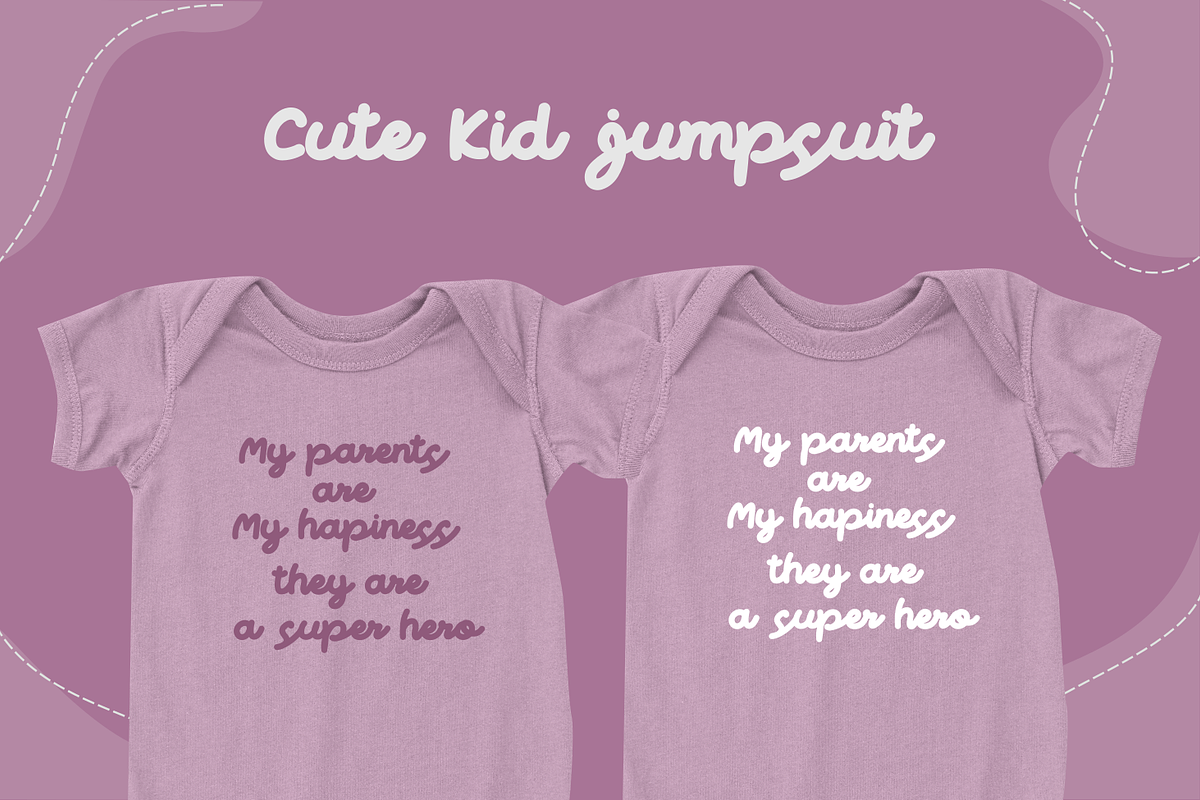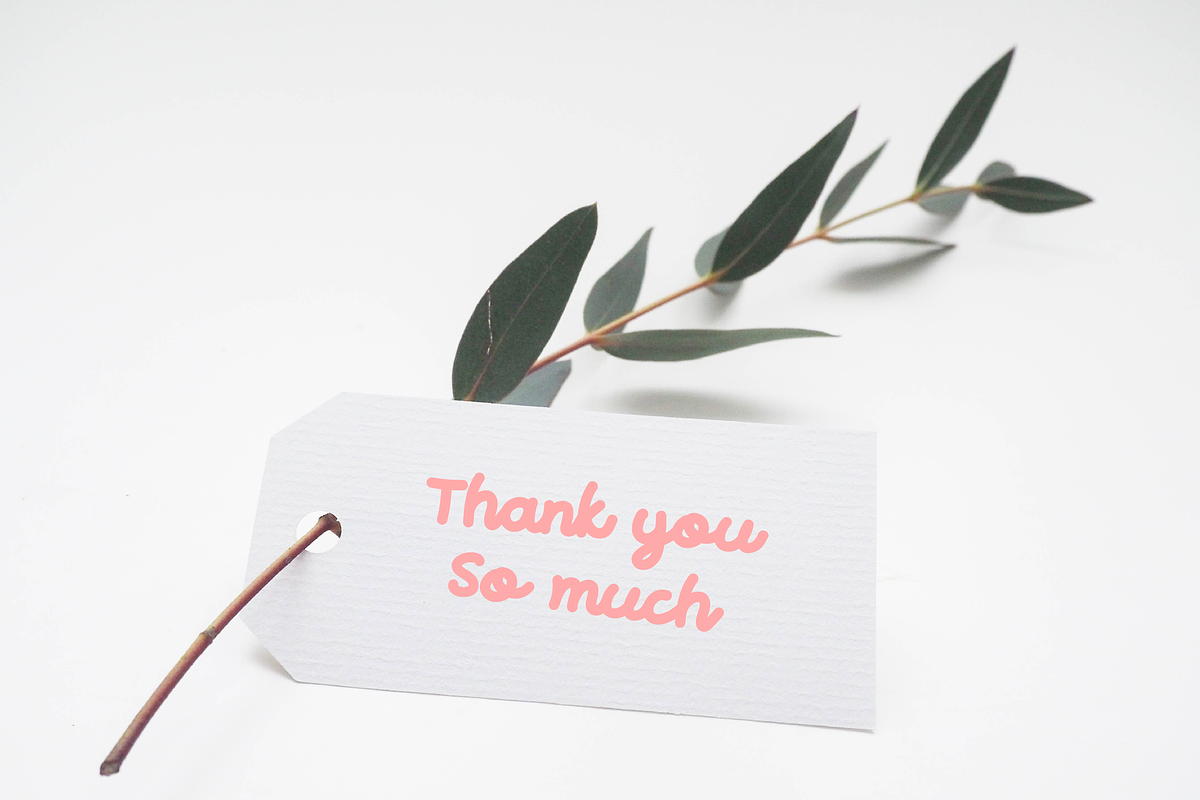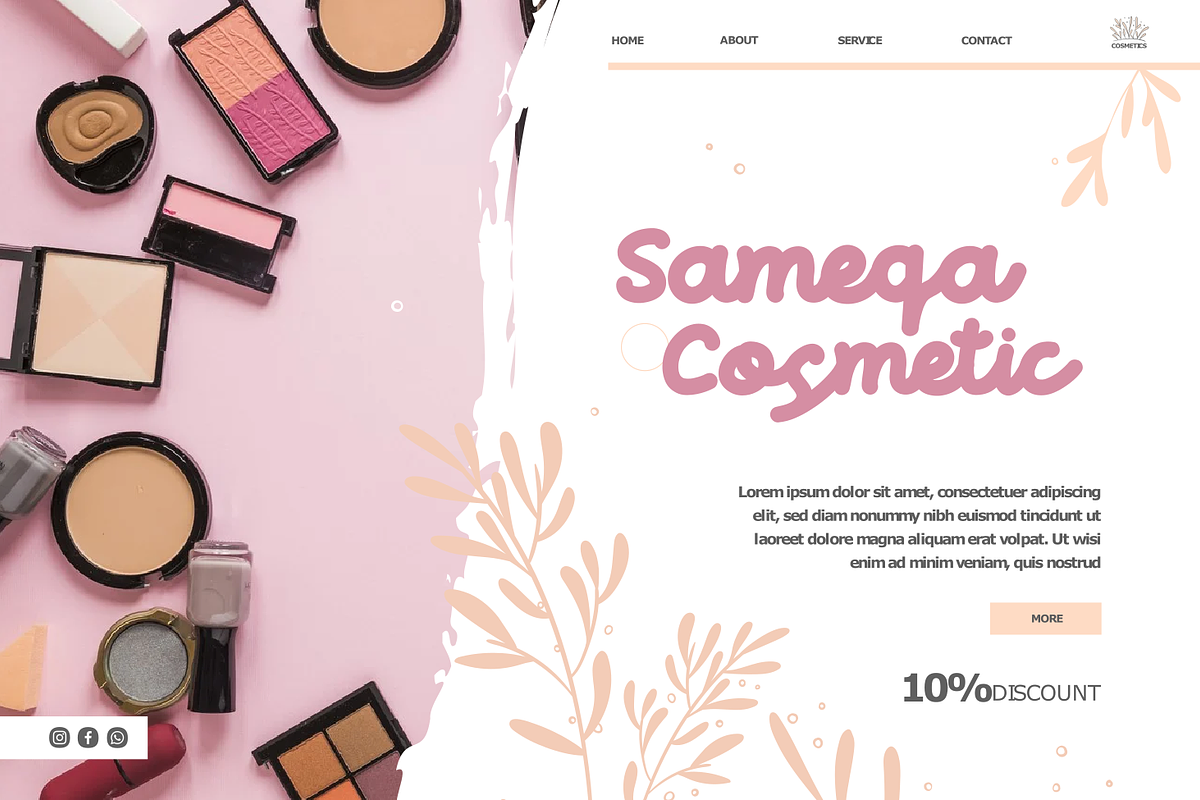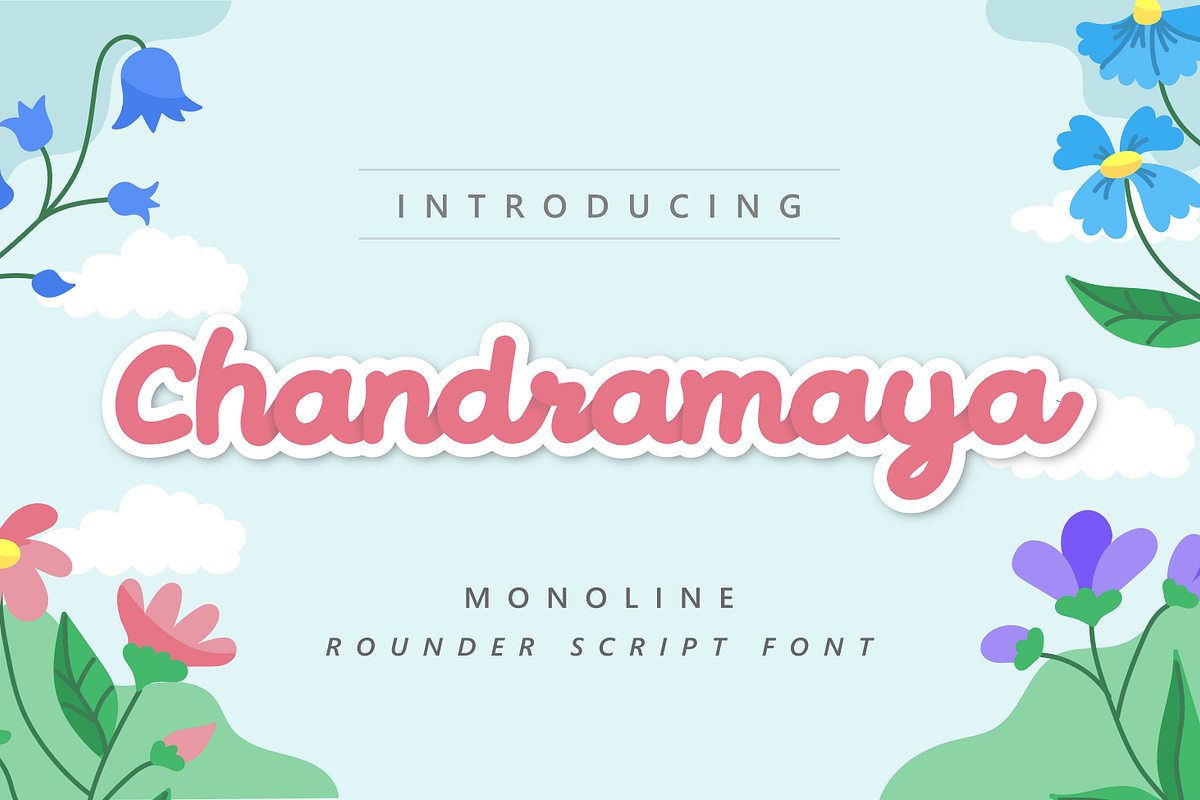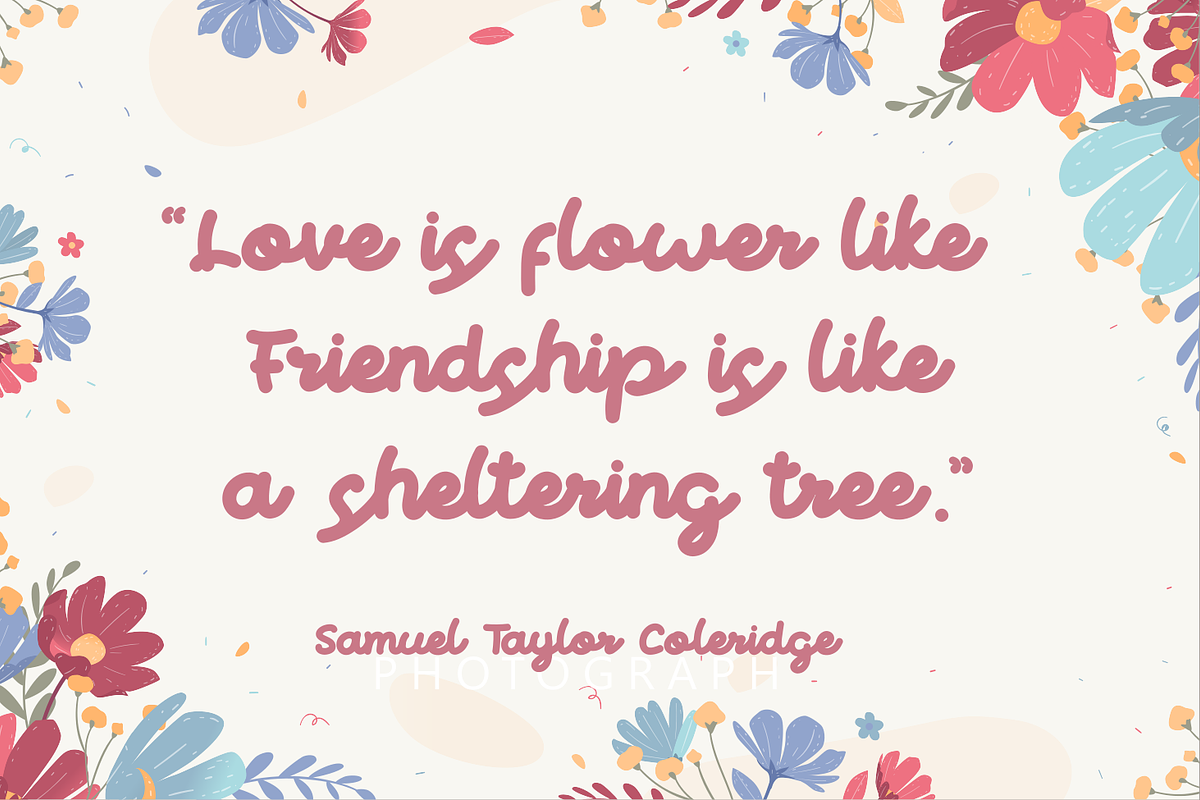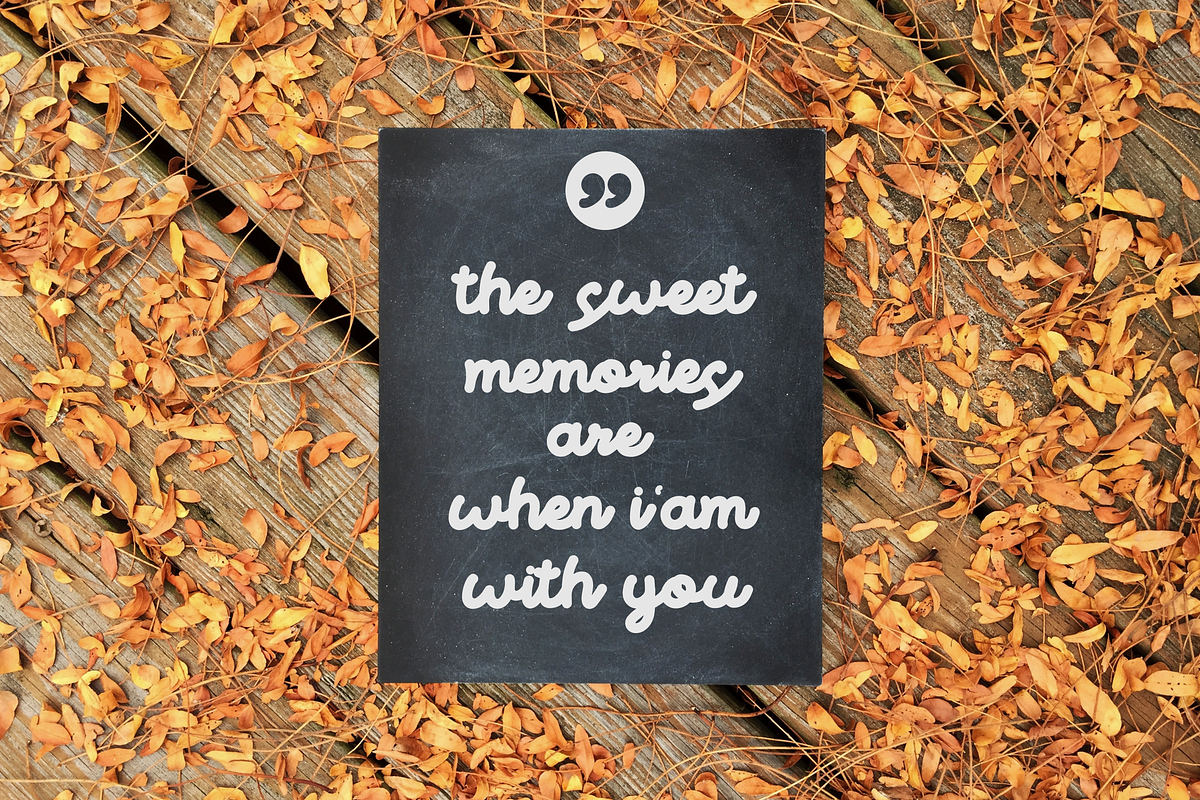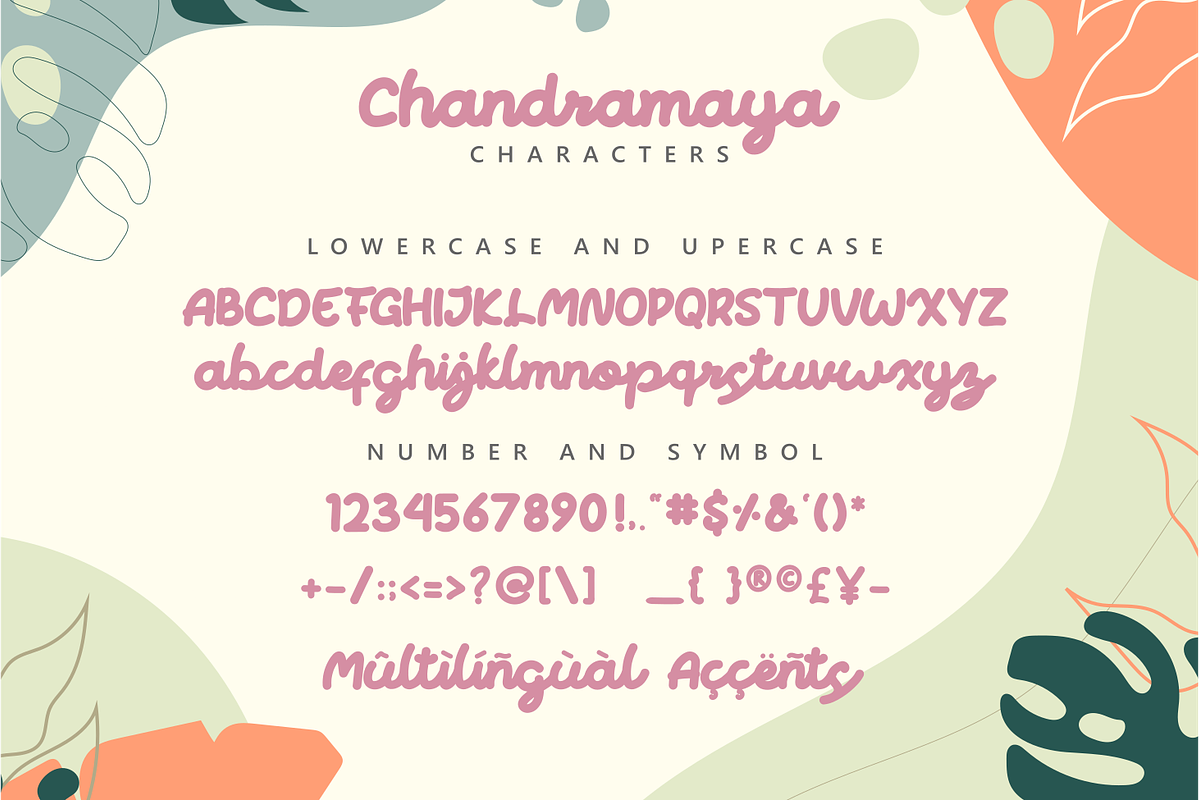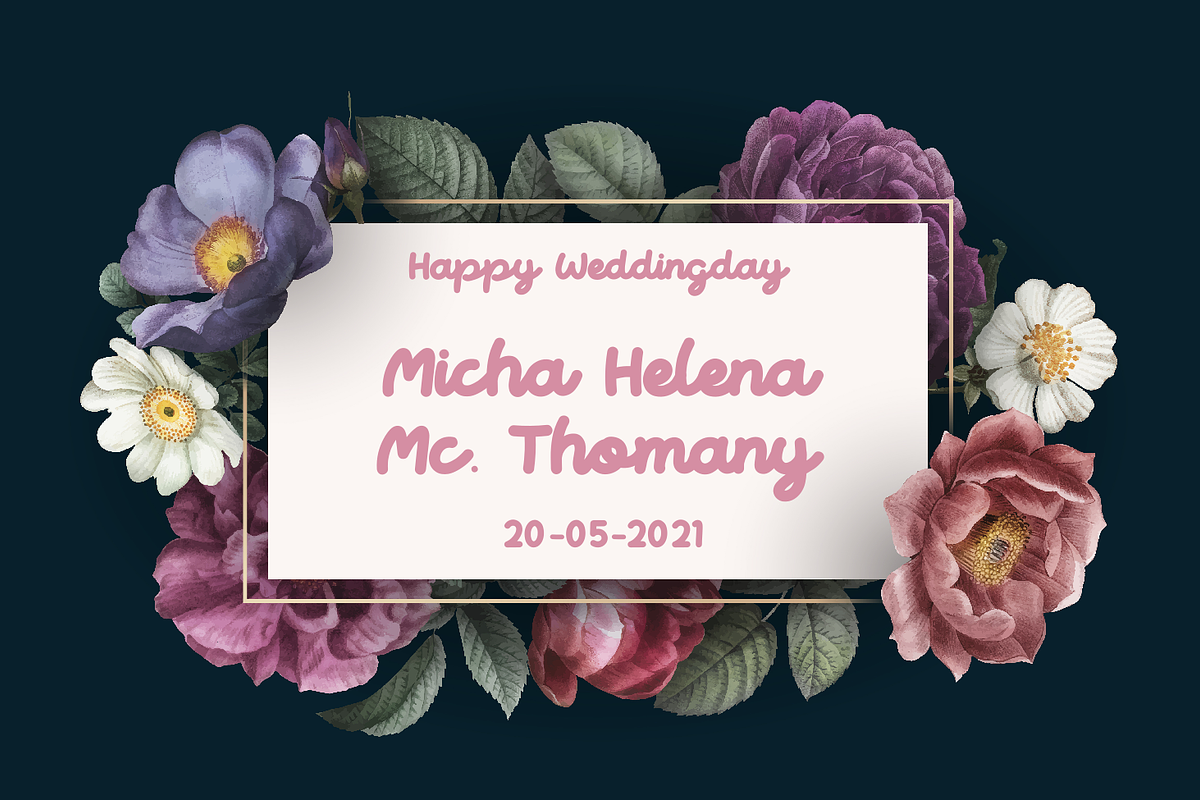
Chandramaya
Introducing a new monoline layered font family called Chandramaya Monoline font. Chandramaya inspired by 80's music poster, automotive poster, funk music poster. Chandramaya came with opentype features you can mix and match with as you like and many choices of alternative character. Chandramaya good for logotype, poster, badge, book cover, tshirt design, packaging and any more.